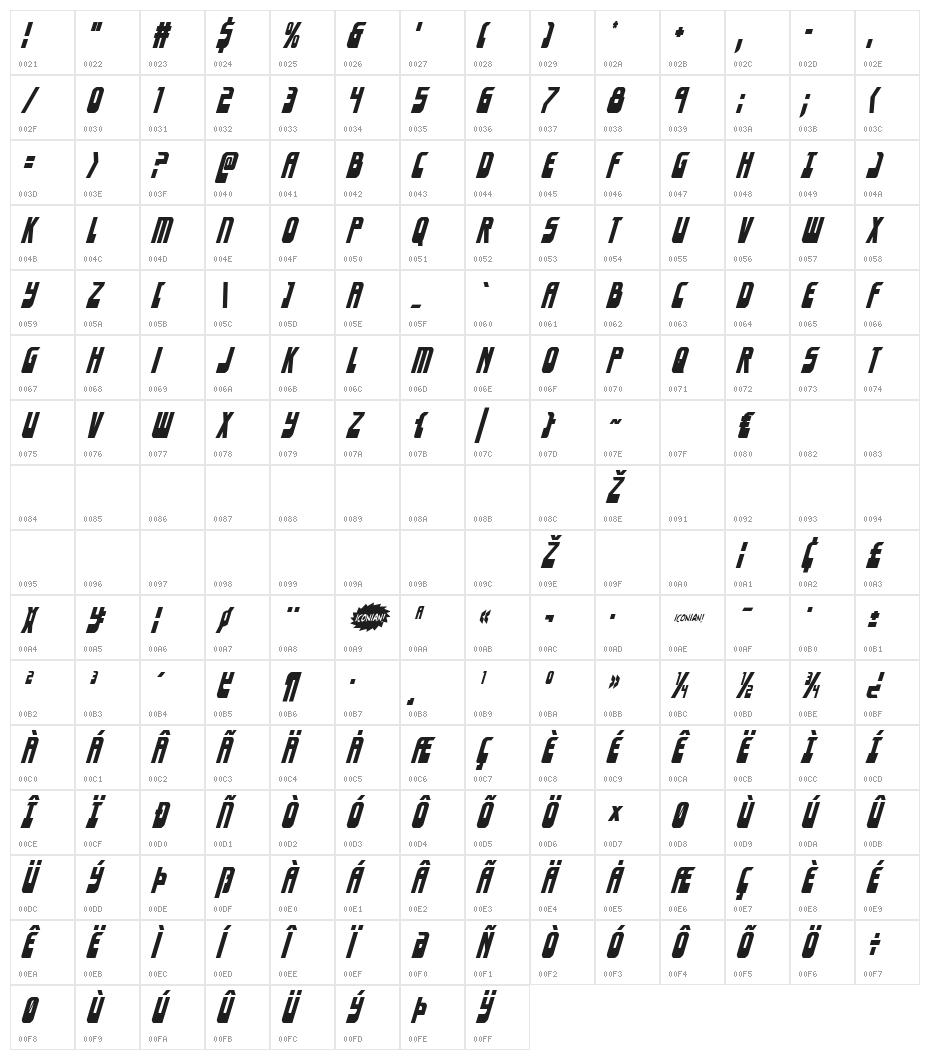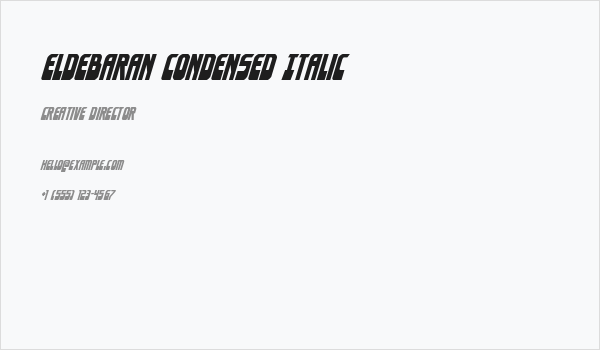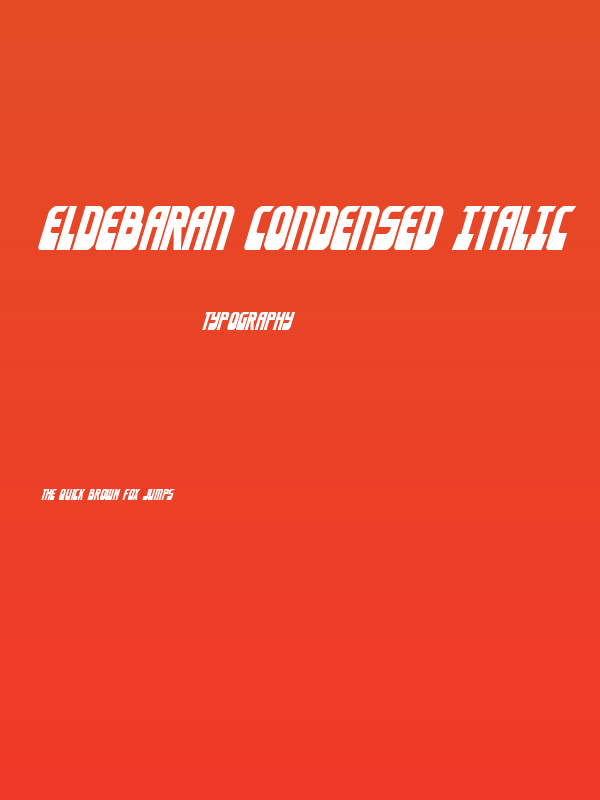
Eldebaran Condensed Italic Font
Eldebaran Condensed Italic Description
This font features a bold, condensed style with a distinct italic slant, giving it a dynamic and forward-moving appearance. The characters are tightly spaced, enhancing its compact and impactful look. The strokes are thick and consistent, providing a strong visual presence. The angular design of the letters adds a modern and futuristic touch, making it suitable for attention-grabbing headlines and logos. The numerals and special characters maintain the same bold and angular style, ensuring uniformity across all elements.
| Proposed Projects | Ideal for futuristic branding, sports team logos, dynamic posters, and tech-related projects. |